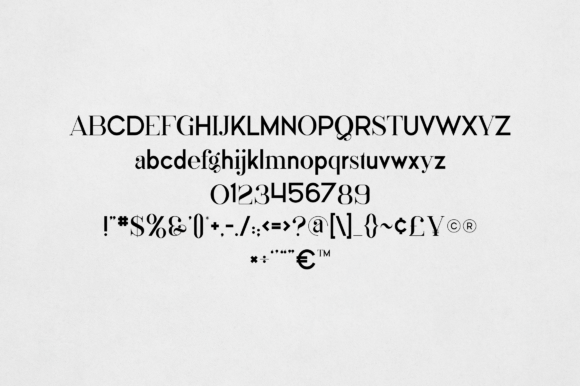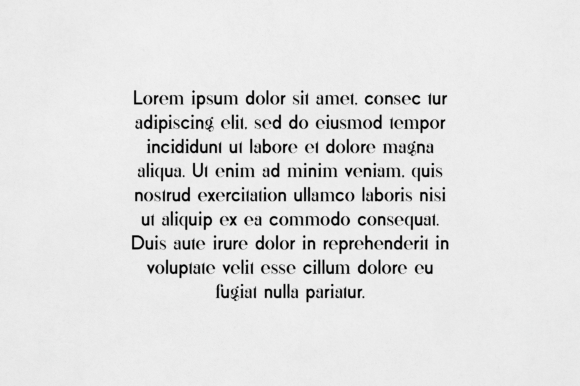
Ashlyn Font: Elevate Your Typography with Elegance and Versatility
Are you tired of using the same old fonts for your design projects? Look no further than Ashlyn Font, a stunning and versatile typeface that will add a touch of sophistication to any design. Whether you’re working on a logo, branding, headline, or plain text, Ashlyn Font is the perfect choice to make your typography truly unique.
Ashlyn Font is a designer’s dream come true. Its elegant and refined features make it perfect for a wide range of applications, from branding projects to home-ware designs, product packaging, and magazine headers. This font is also ideal for adding a stylish text overlay to any background image, giving your design a professional and polished look.
What Makes Ashlyn Font So Special?
Ashlyn Font stands out from other fonts due to its unique blend of classic and modern elements. Its elegant lines, subtle curves, and refined features make it a versatile font that can be used in a variety of contexts. Whether you’re looking to create a sophisticated brand identity or add a touch of whimsy to your design, Ashlyn Font is the perfect choice.
Key Features of Ashlyn Font
- Elegant and refined design: Ashlyn Font features a sophisticated and elegant design that will add a touch of class to any project.
- Versatile and adaptable: This font can be used in a wide range of applications, from branding and logos to headlines and plain text.
- Perfect for designers and crafters: Ashlyn Font is a designer’s dream come true, with its refined features and elegant lines making it perfect for a variety of design projects.
- Stylish text overlay: Use Ashlyn Font to add a stylish text overlay to any background image, giving your design a professional and polished look.
How to Use Ashlyn Font in Your Design Projects
Ashlyn Font is easy to use and can be incorporated into a variety of design projects. Here are a few ideas to get you started:
- Branding projects: Use Ashlyn Font to create a sophisticated brand identity that will set your business apart from the competition.
- Home-ware designs: Add a touch of elegance to your home-ware designs with Ashlyn Font, perfect for creating stylish labels, packaging, and more.
- Product packaging: Use Ashlyn Font to create eye-catching product packaging that will make your products stand out on store shelves.
- Magazine headers: Add a touch of sophistication to your magazine headers with Ashlyn Font, perfect for creating stylish and elegant typography.
Tips and Tricks for Getting the Most Out of Ashlyn Font
Here are a few tips and tricks to help you get the most out of Ashlyn Font:
- Experiment with different colors and textures: Ashlyn Font looks great in a variety of colors and textures, so don’t be afraid to experiment and find the perfect combination for your design.
- Use it with other fonts: Ashlyn Font pairs well with other fonts, so try using it with a complementary font to create a unique and stylish typography.
- Pay attention to spacing and kerning: Make sure to pay attention to spacing and kerning when using Ashlyn Font, as this will help to create a polished and professional look.
Ashlyn Font is a stunning and versatile typeface that will add a touch of elegance and sophistication to any design project. With its refined features, elegant lines, and adaptable design, Ashlyn Font is perfect for designers and crafters looking to create unique and stylish typography. Whether you’re working on a branding project, home-ware design, product packaging, or magazine header, Ashlyn Font is the perfect choice.